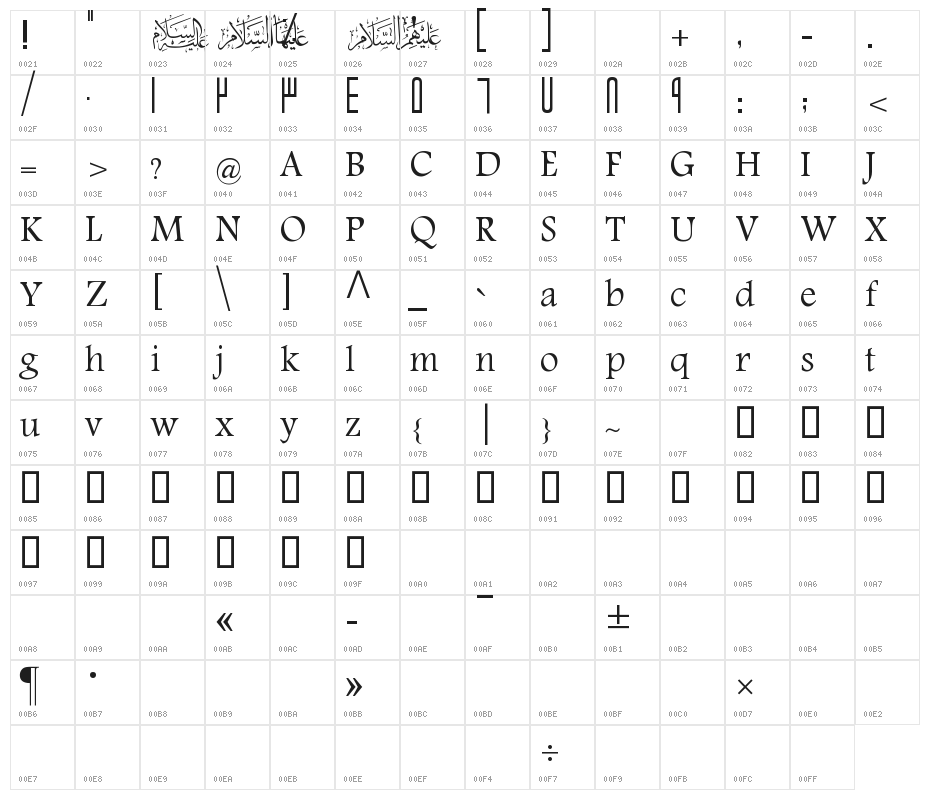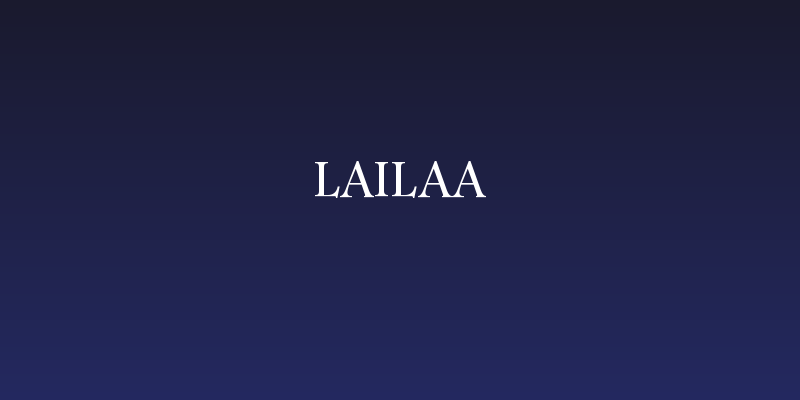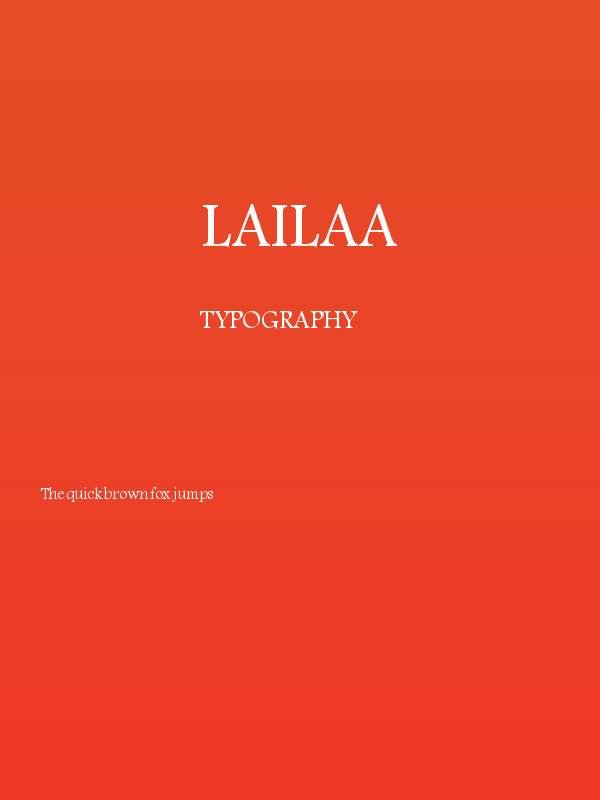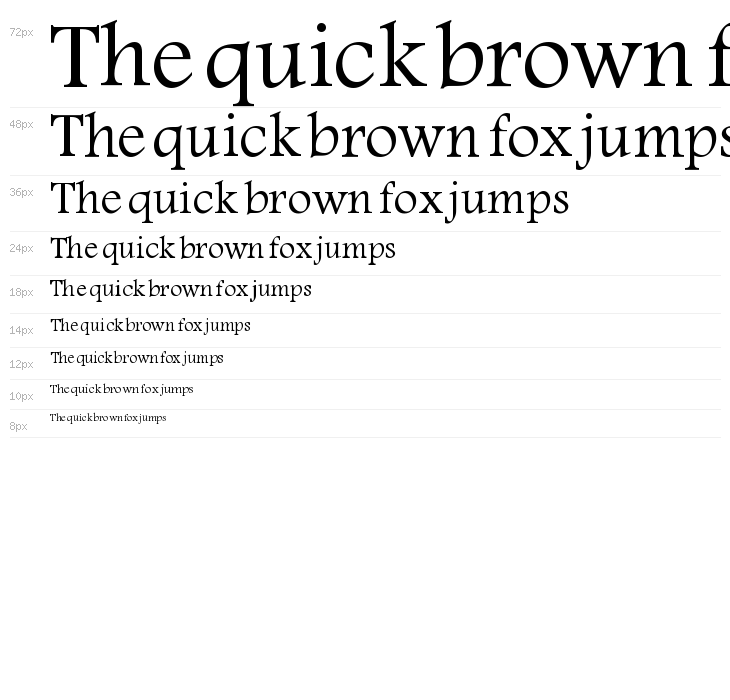
Lailaa Font
Lailaa Description
This font features a classic serif style with elegant curves and a refined appearance. The uppercase letters are bold and commanding, while the lowercase letters maintain a graceful flow. The numerals are distinct and modern, providing a nice contrast to the traditional letterforms. The special characters are well-integrated, adding versatility to the font's usage. Overall, the font exudes sophistication and is suitable for a variety of formal applications.
| Proposed Projects | Ideal for book covers, formal invitations, branding, and editorial design. |